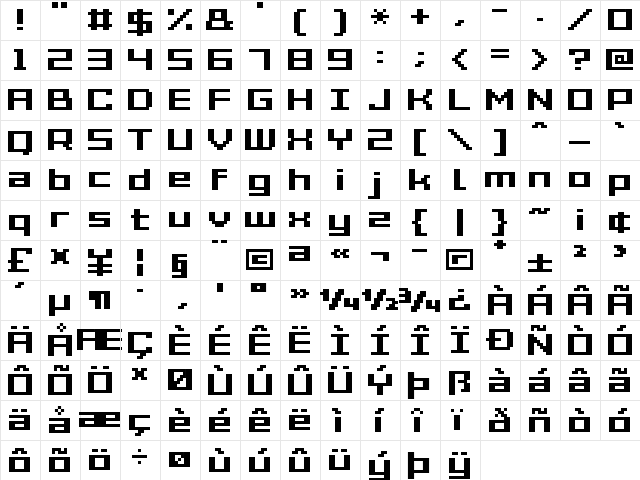
Grixel Acme 7 Wide Bold Xtnd Regular
| Foundry | Nikos Giannakopoulos |
Design Context for Grixel Acme 7 Wide Bold Xtnd Typeface
Grixel Acme 7 Wide Bold Xtnd offers clean, dependable letterforms without strong stylistic allegiance, making it a practical choice for designers who need flexibility. Its bold stroke weight gives it real presence on the page.